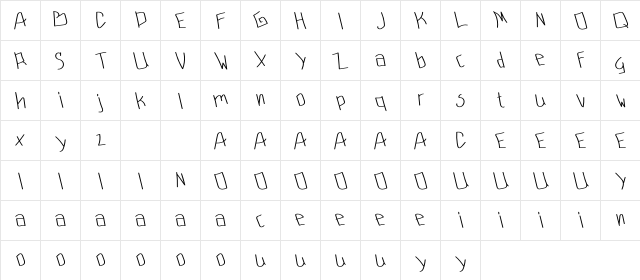
Rafasha Regular
Design Context for Rafasha Typeface
Rafasha is a composed and adaptable typeface that performs quietly and consistently across a wide range of design contexts.